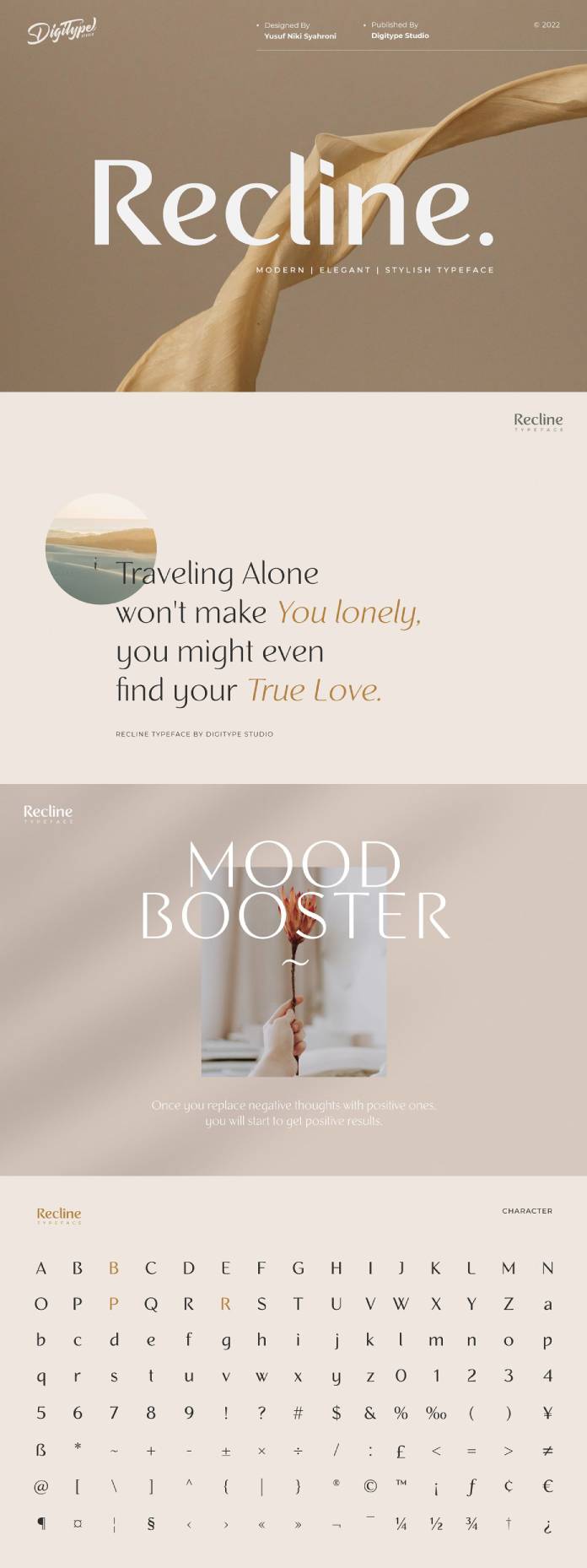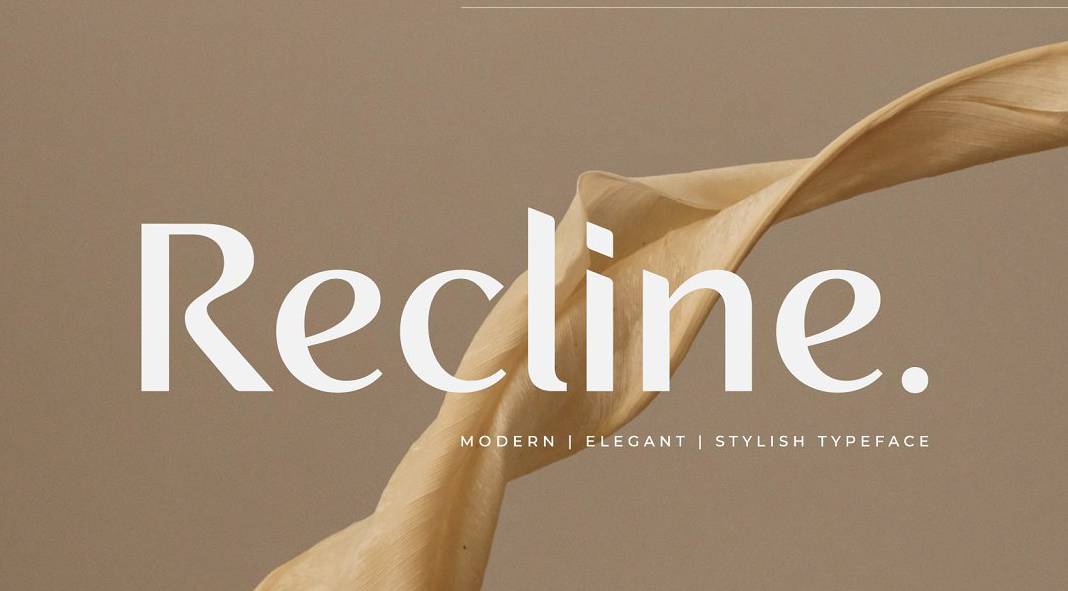
Discover the beautifully designed Recline typeface, a stylish font family consisting of 10 weights including 5 straight and angled.
Designed and published by the skilled team of Digitype Studio, the Recline font family combines elegance with a stylish, contemporary look and feel. Equipped with 10 weights including 5 uprights and their italic versions, this beautifully designed font family can be used for a wide range of applications including print and web projects. Recline is a great display font that really shines in headlines, logotypes, brand identities, packaging, and more. Just click on the following link to learn more about all features and download options of the Recline font family.